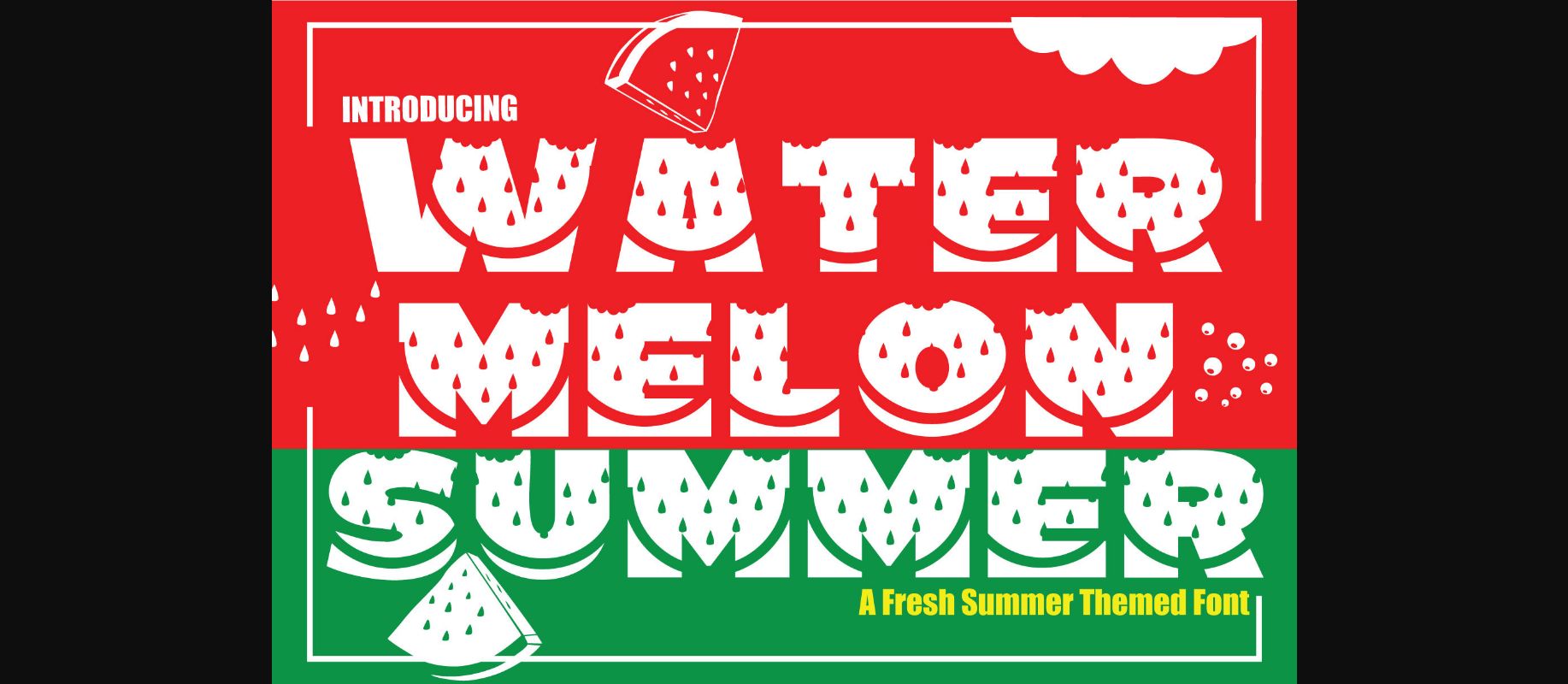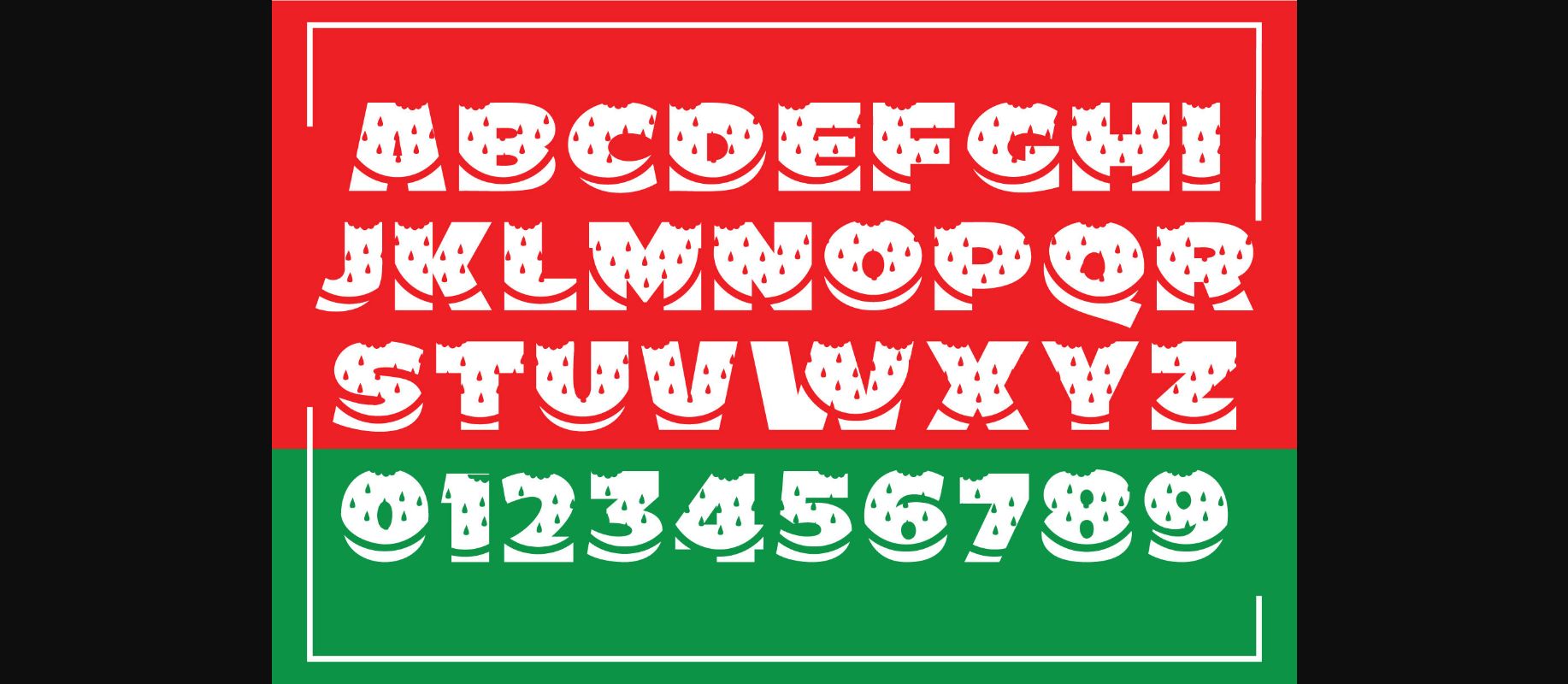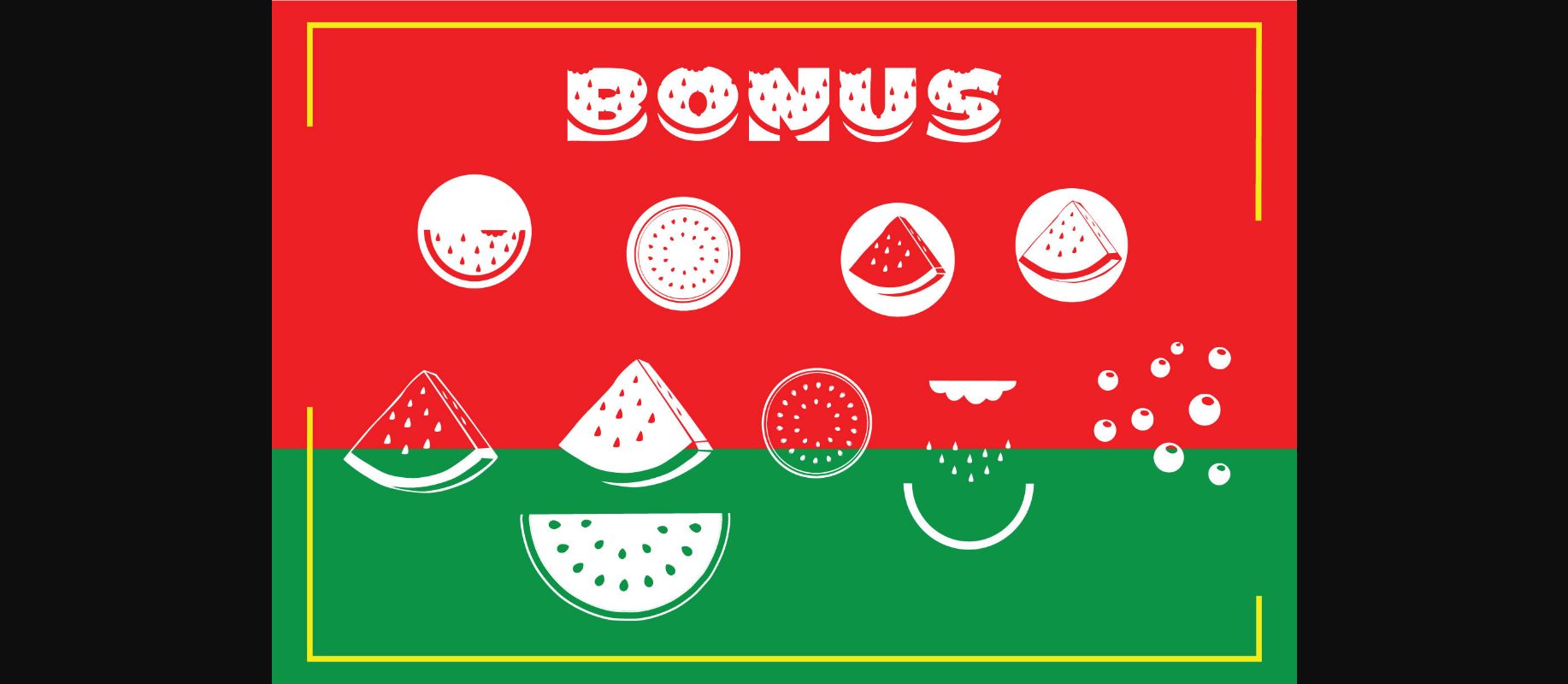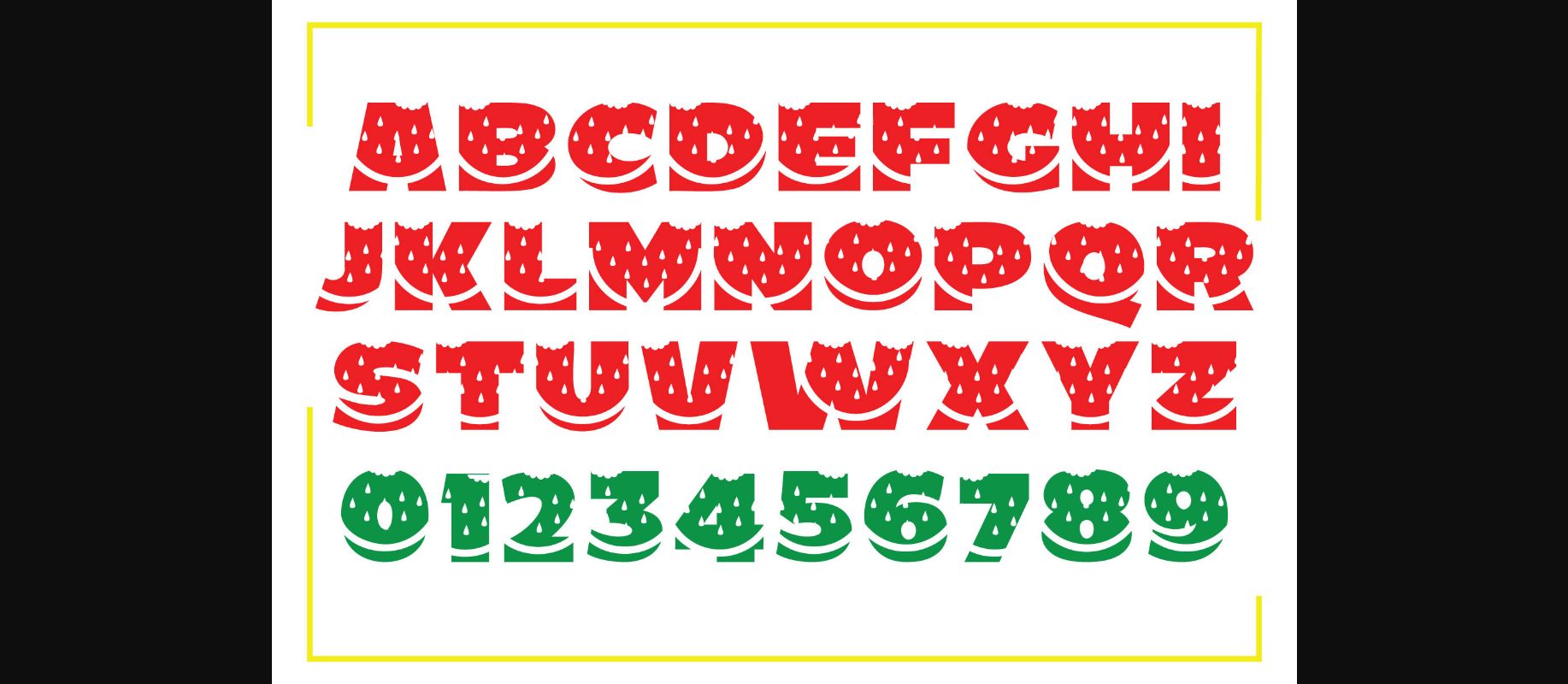
Watermelon Summer Font
About Watermelon Summer Font
Watermelon Summer is a cool, fresh and summery decorative font. Whether you’re using it for crafting, digital designing, presentations or greeting cards making, it’s perfect!